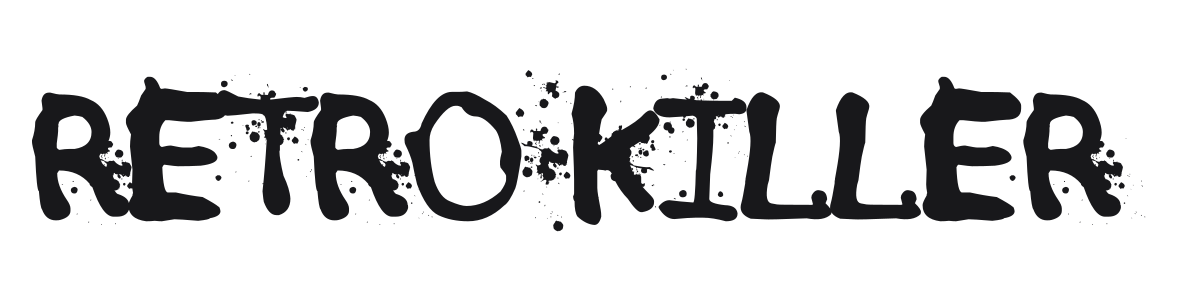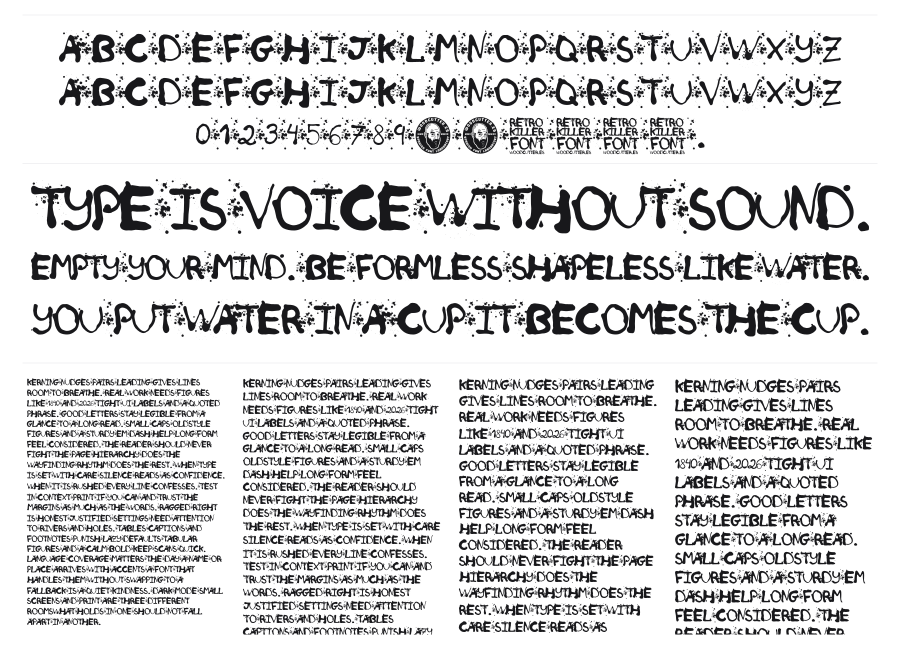
Retro Killer
Retro Killer is a heavy all-caps display font drowned in ink splatter and decay. Every character carries eroded edges, pooled ink blobs, and scattered droplets that push it firmly into horror and underground territory. It works at large sizes where the texture reads clearly and the chaos feels intentional.